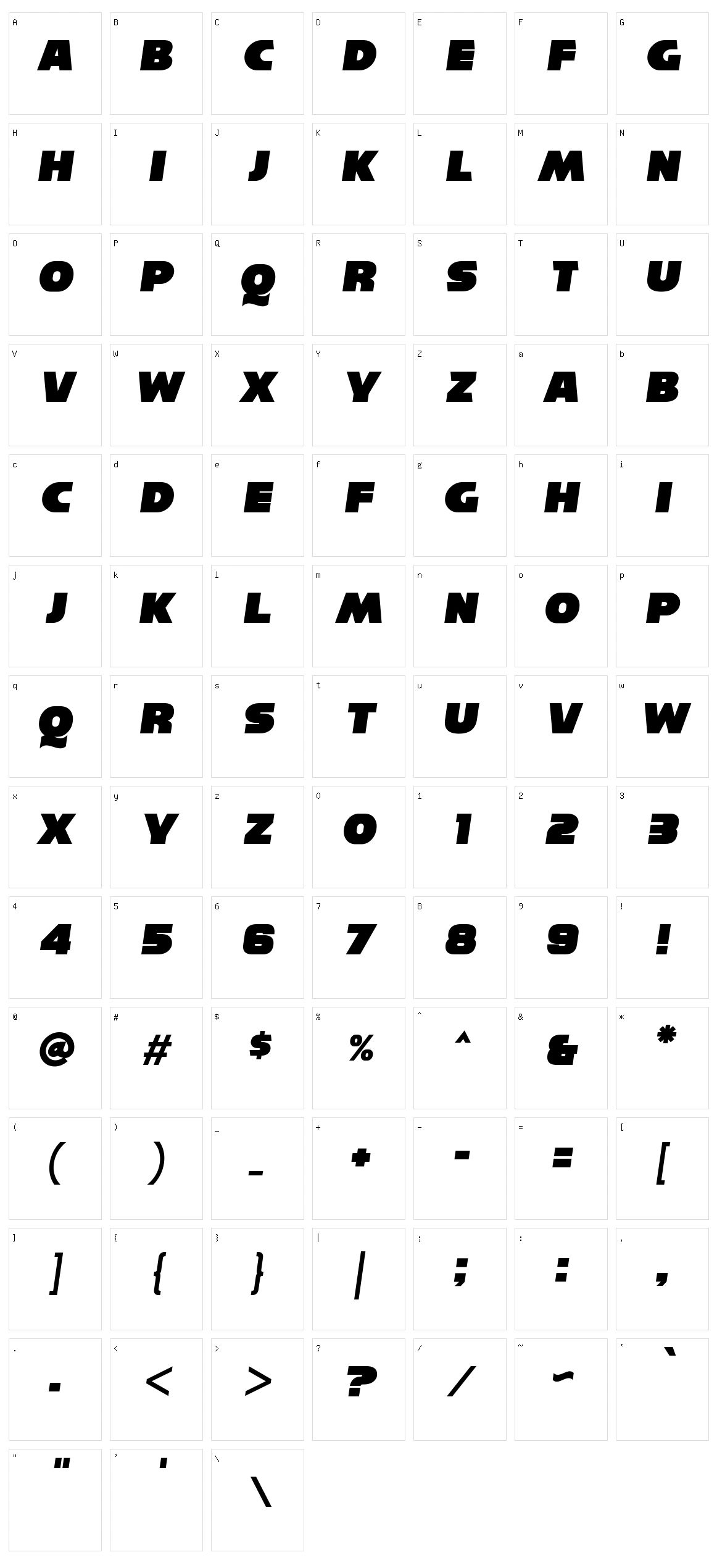
Hey there font fans. Meet Reisenberg. This display font features uppercase characters in two different styles: one is fairly traditional while the lowercase letters have varied angled horizontal bars and arms. While the two can be combined kerning is only available on same case pairs. The broad nature
of Reisenberg will quickly gobble up horizontal space on your next project and deliver a clean, strong look. The tightly spaced feel will look right at home on a poster, book cover, or logo. Next time go with Reisenberg and say it with some emphasis! Basic latin, extended latin, European accents,
punctuation, and kerning is included. Additional characters, marks, and other languages, may be added for a fee. There are a few alternate glyphs included (B, E, F, P, R, and S) that provide a more futuristic look.